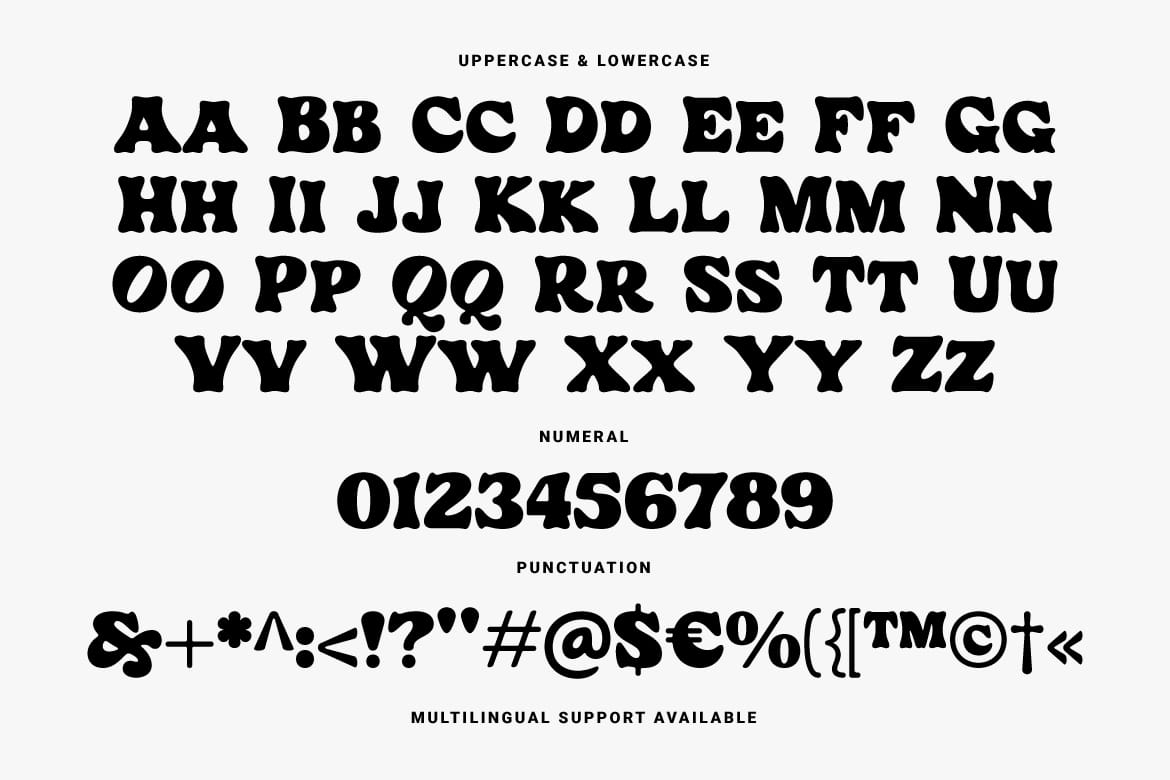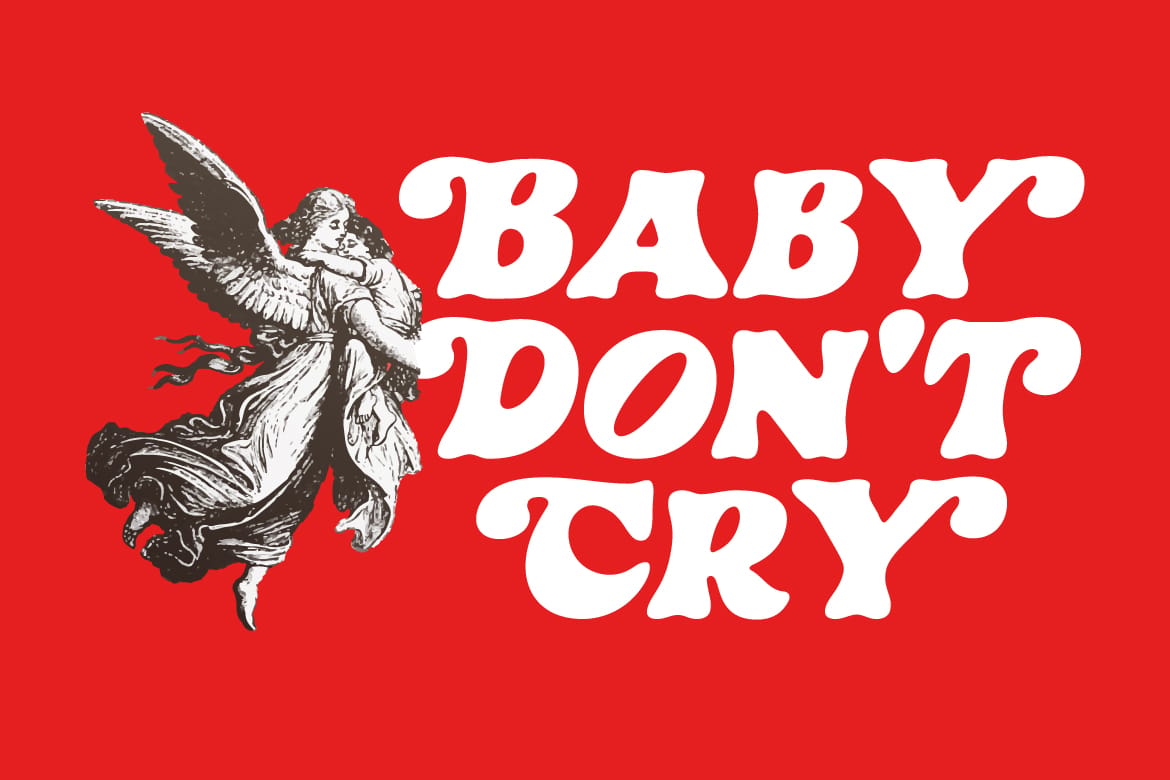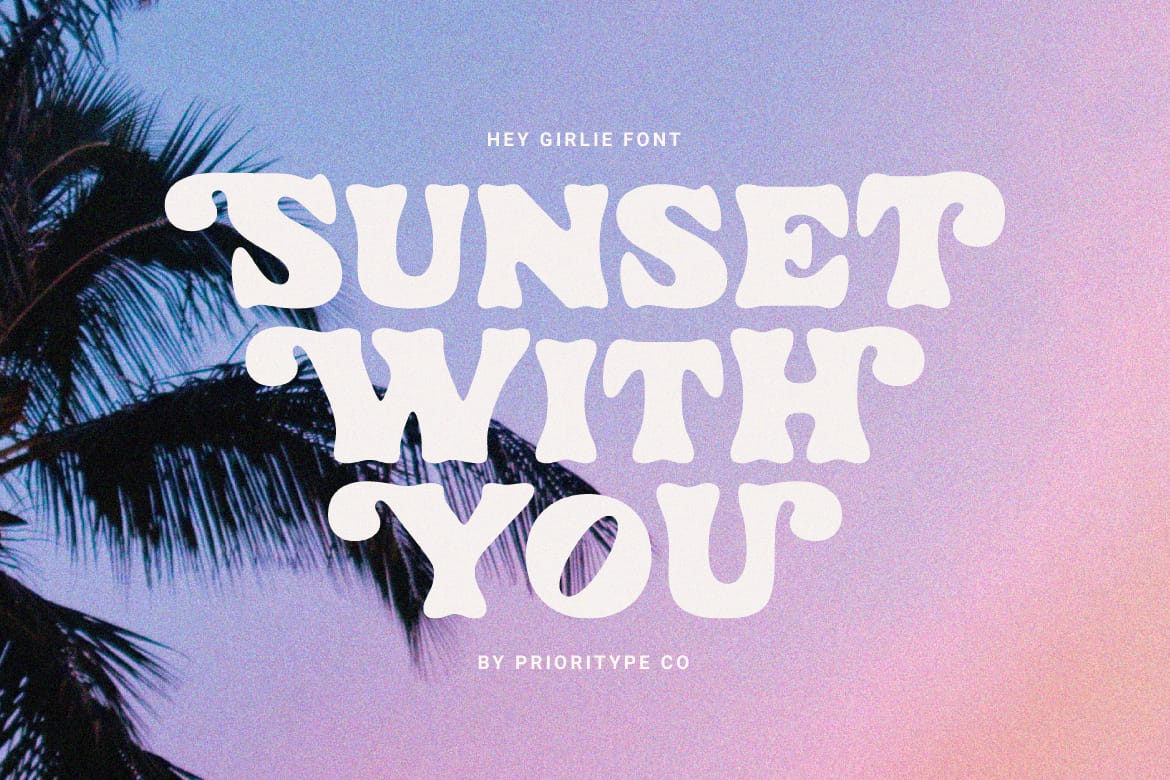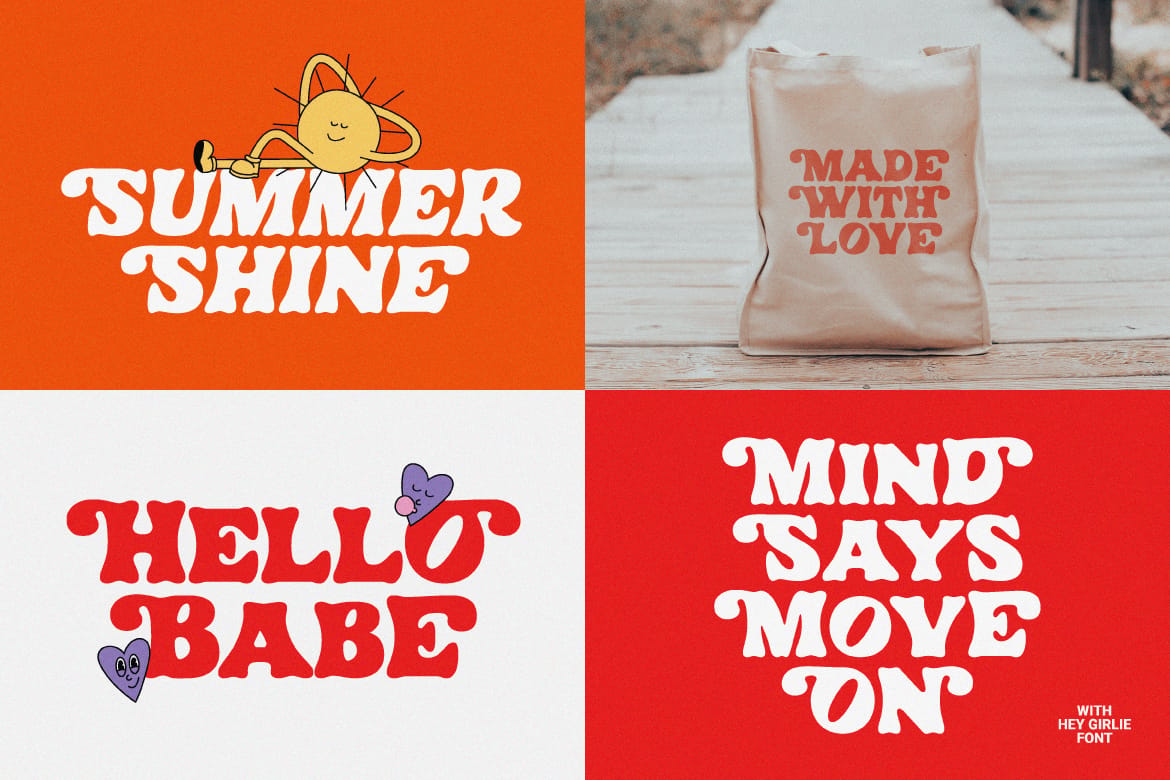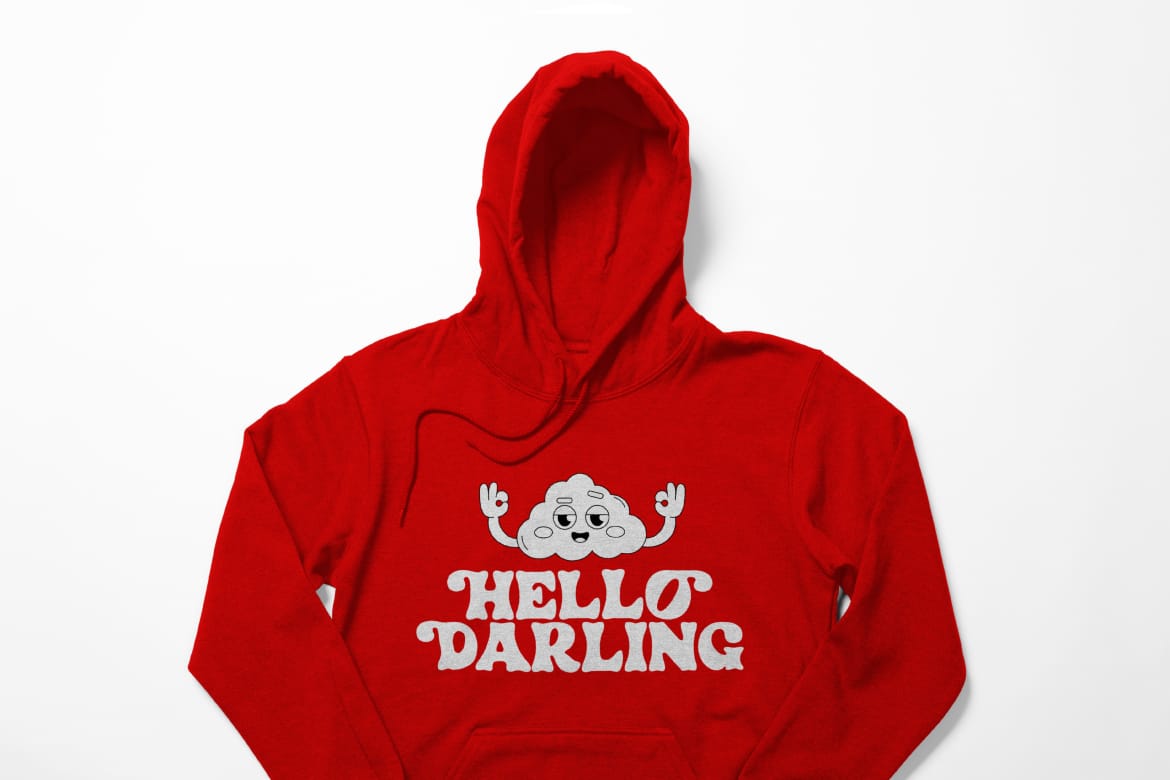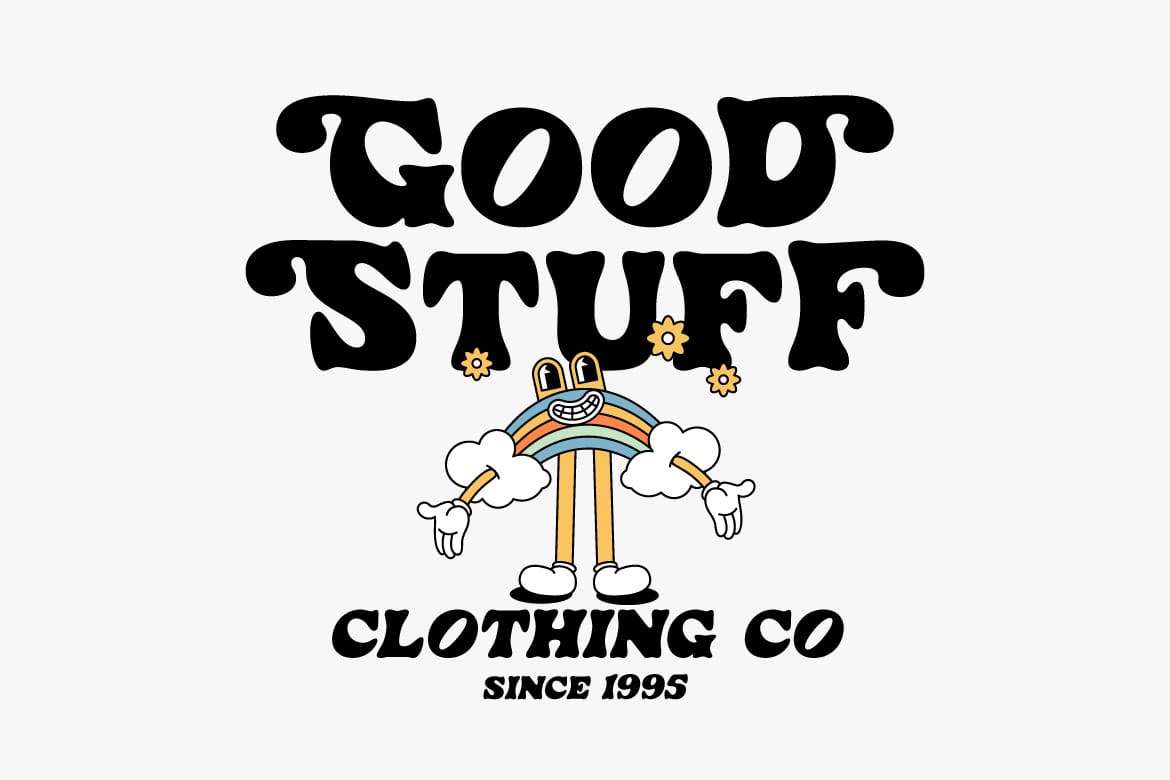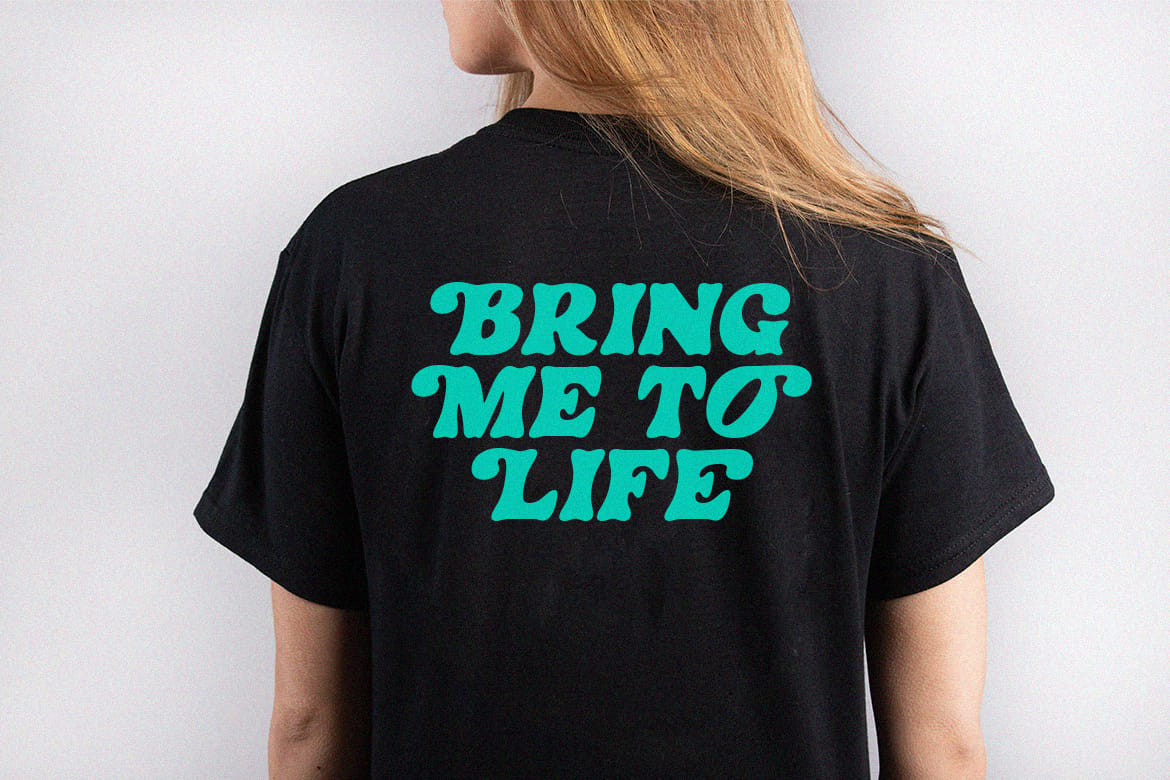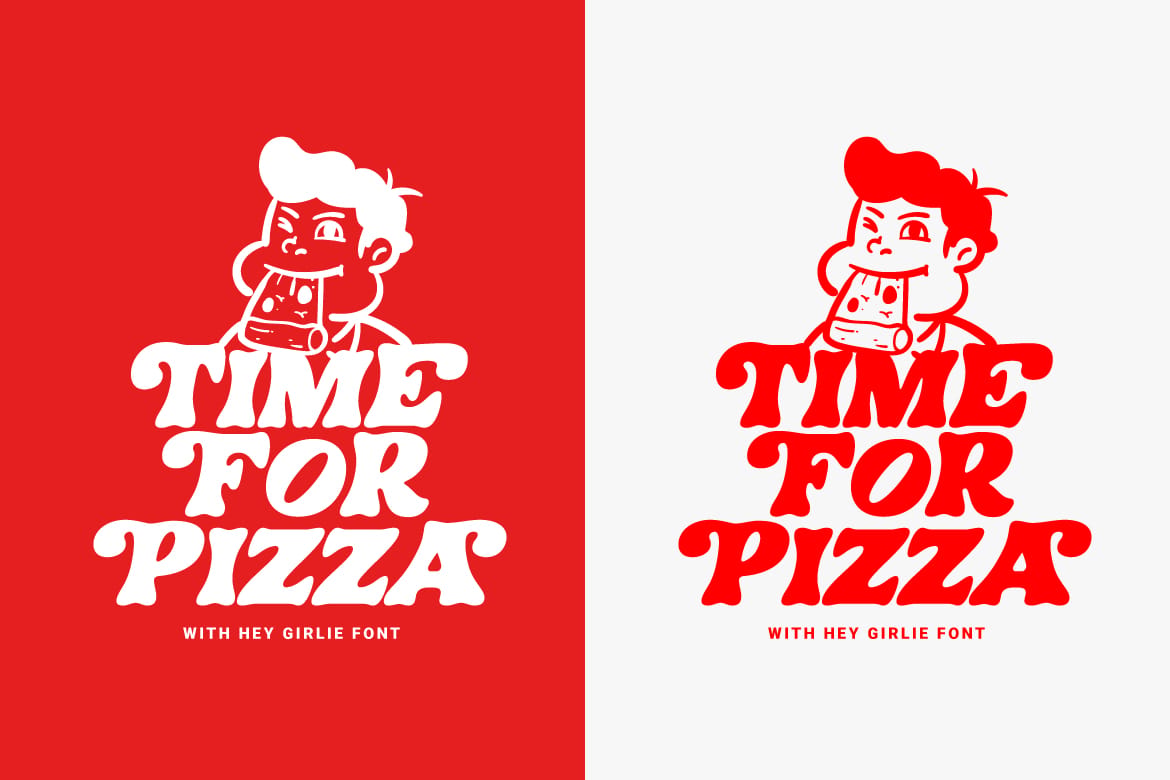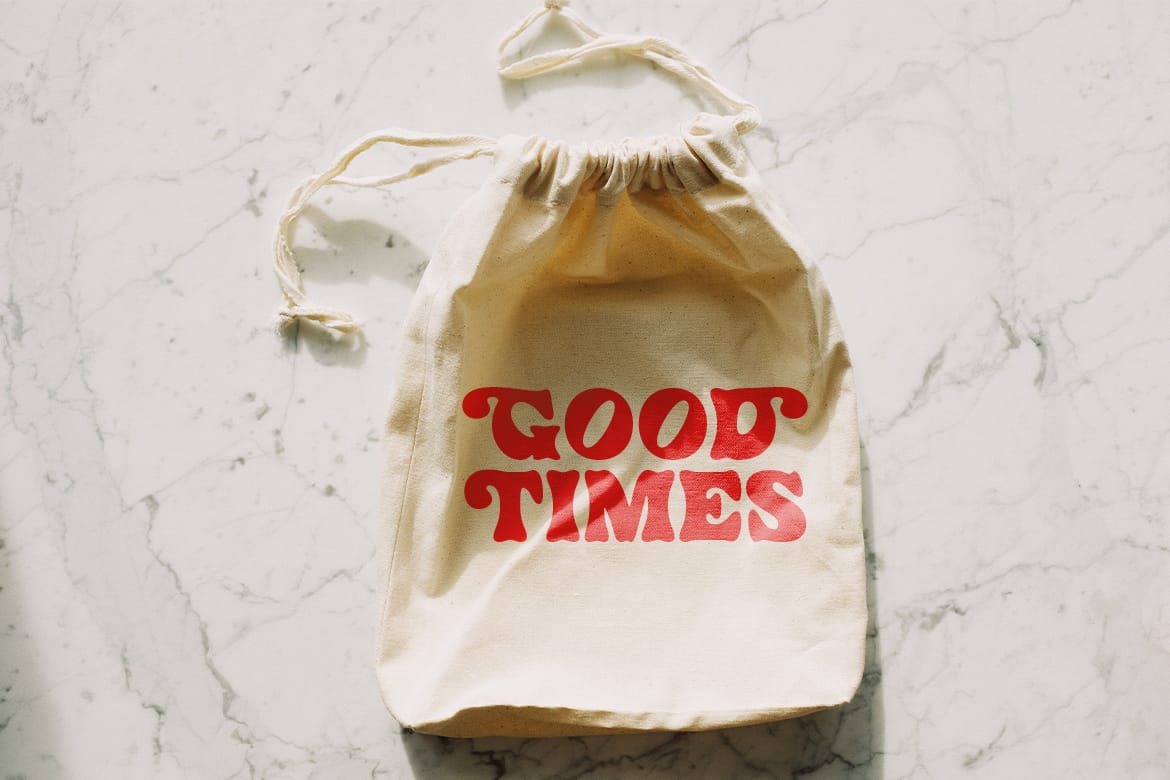
Hey Girlie - Display Font.
Catchy display font is here. Equipped with alternative characters to expand your design style. There are two styles, namely regular and slant. Perfect for merchandise designs, posters, titles, stickers etc.
Features: Uppercase, Lowercase, Numeral, Punctuation, Multilingual & Alternates.
- Regular and slant styles
- Alternative characters included